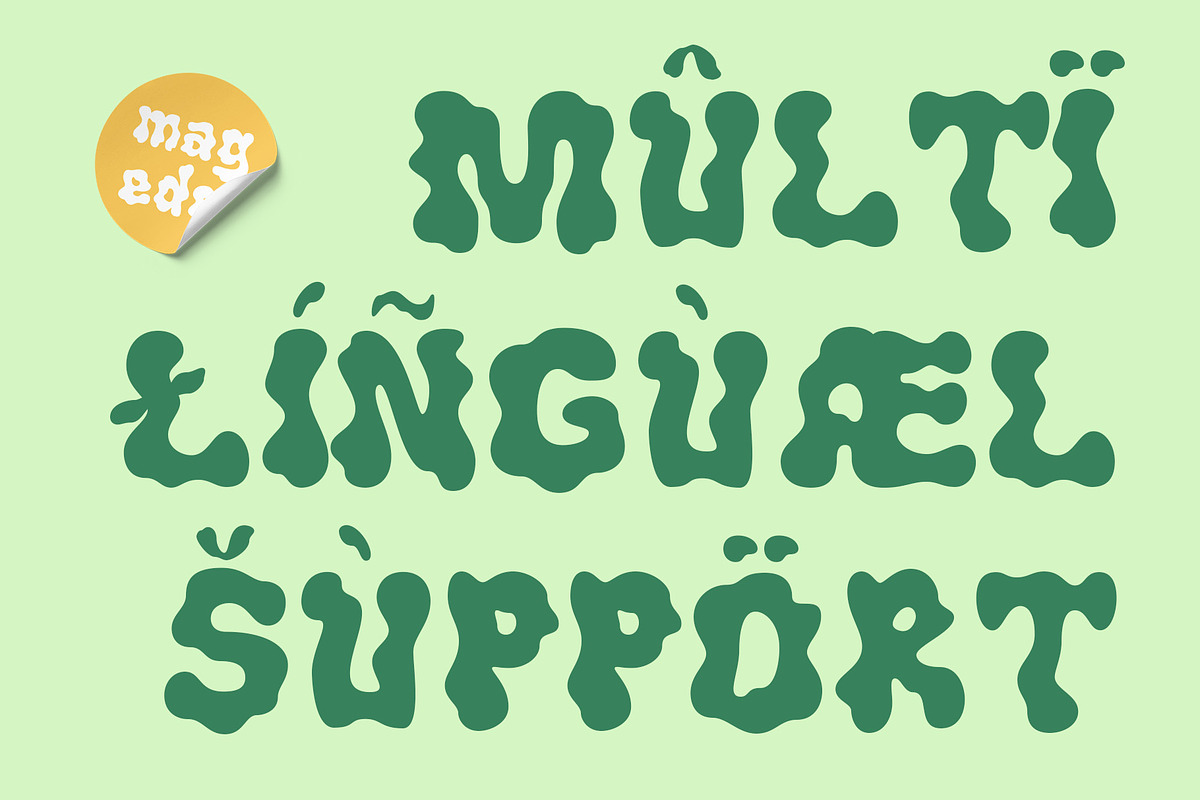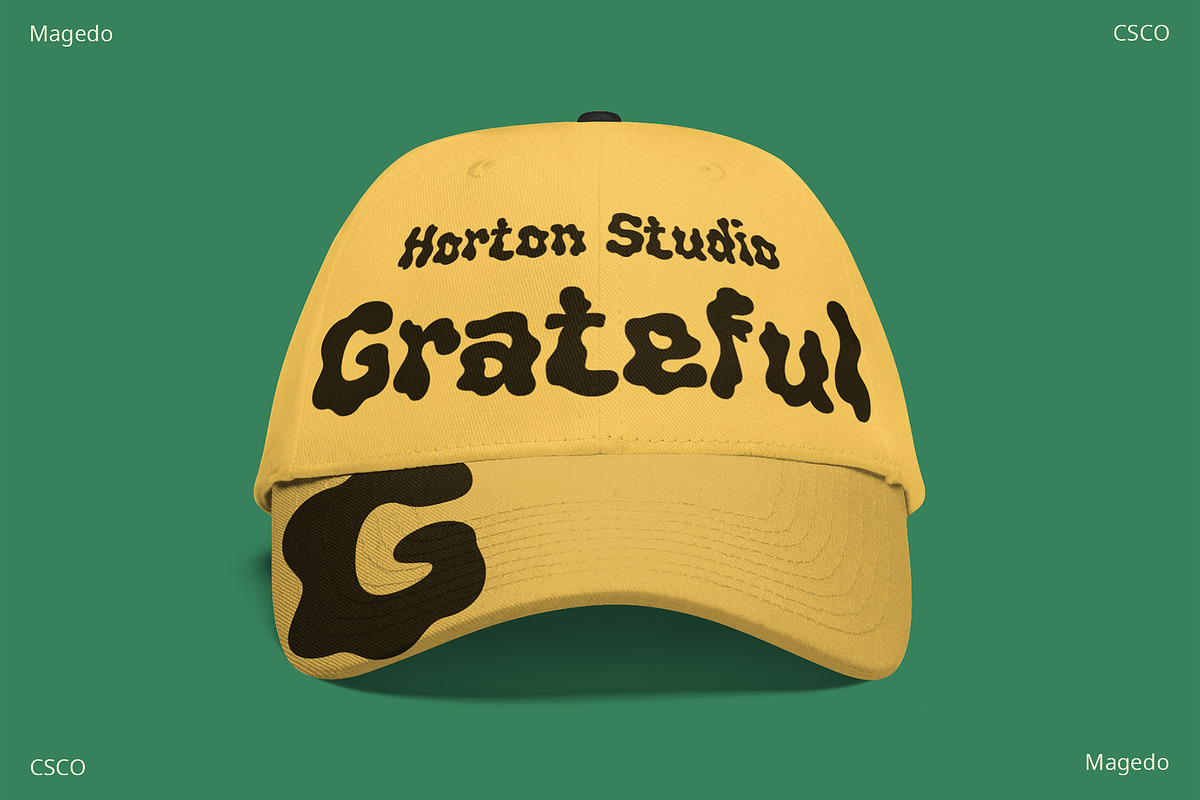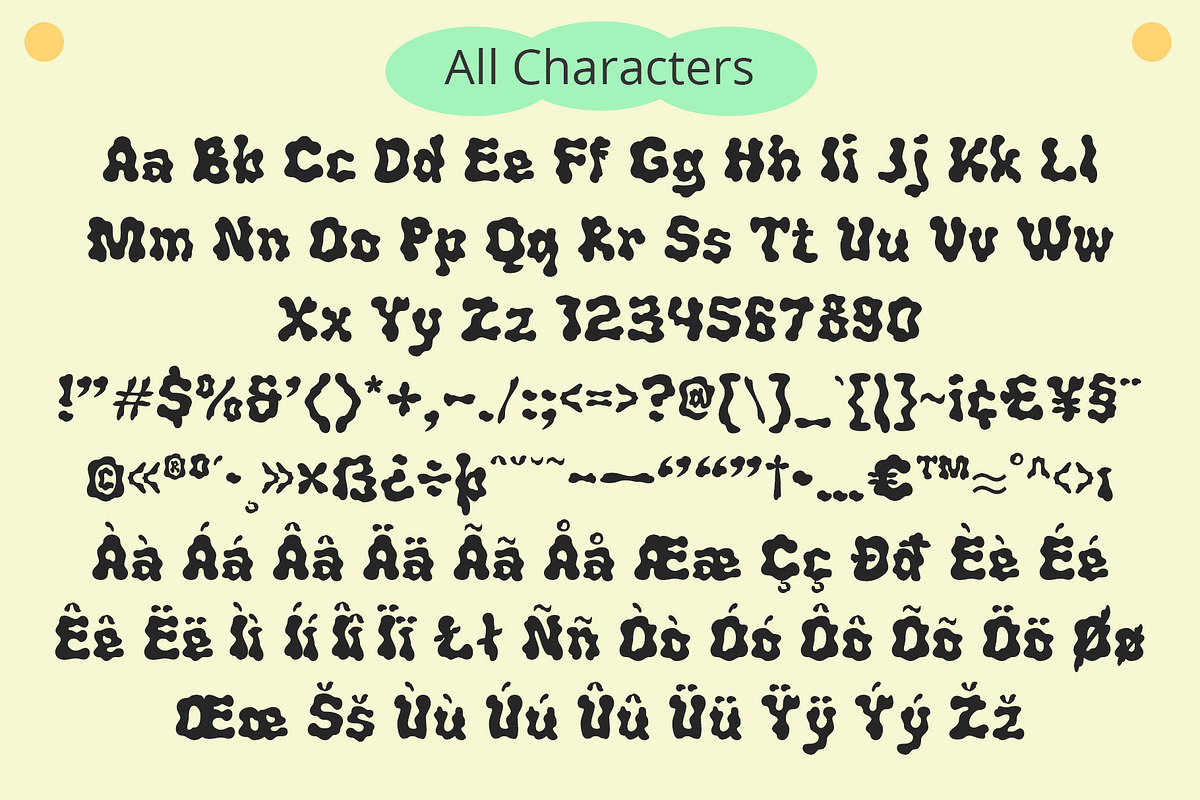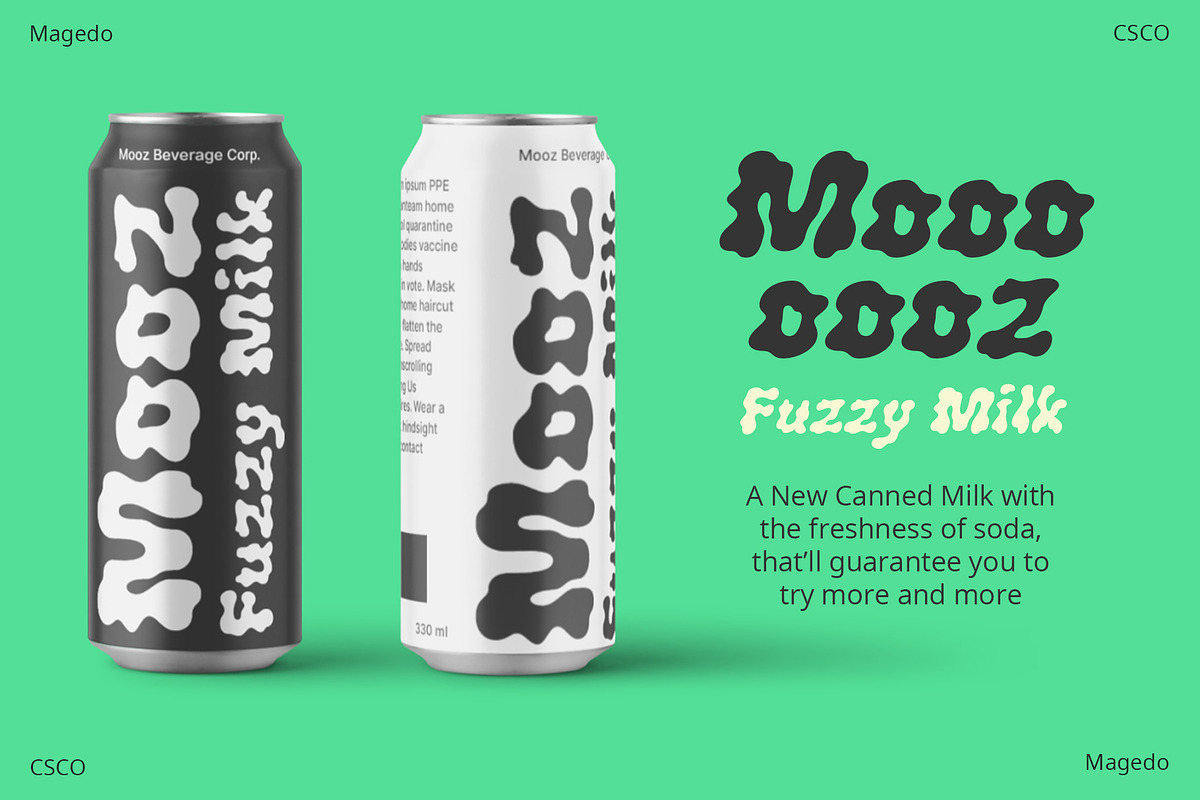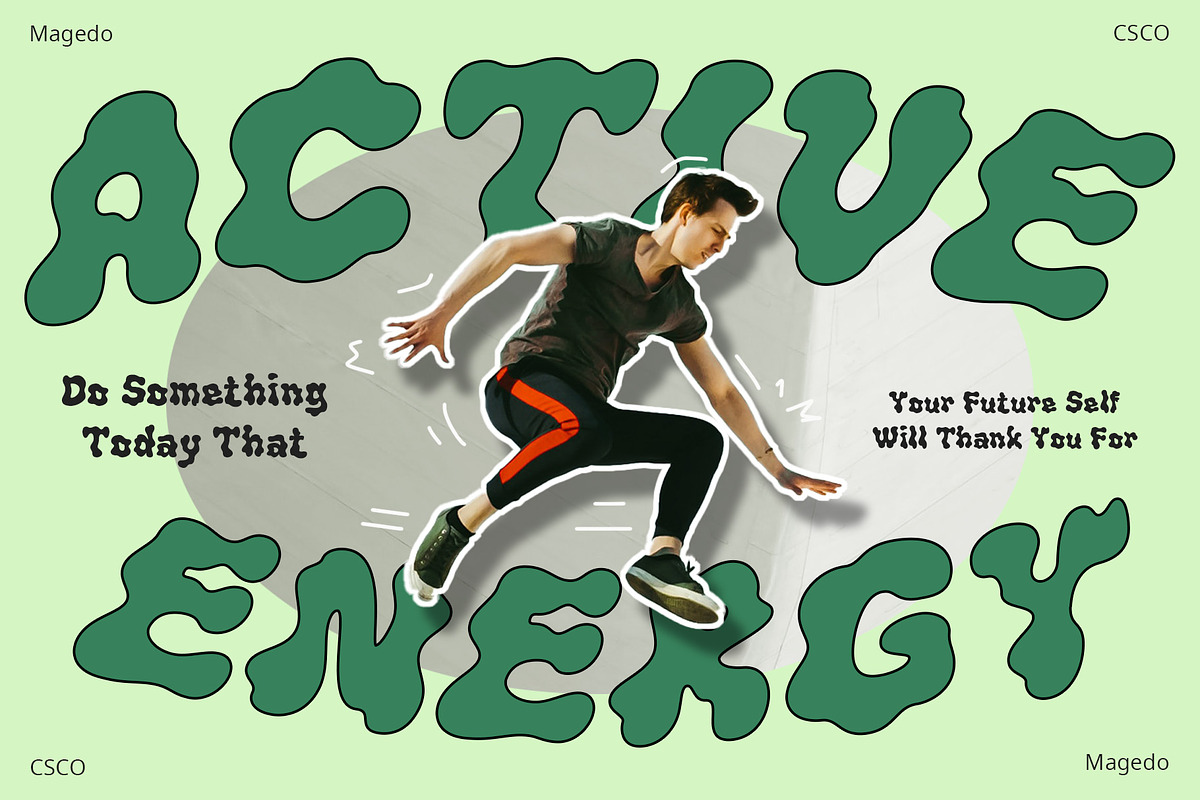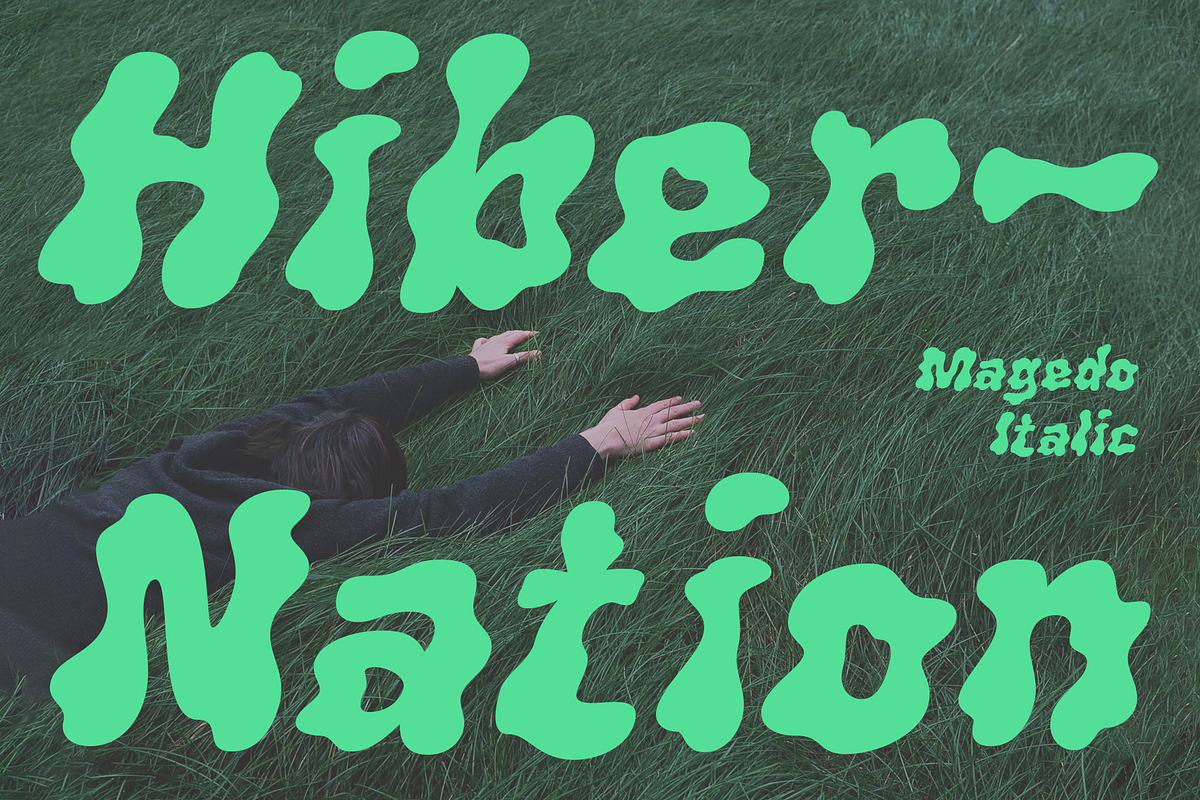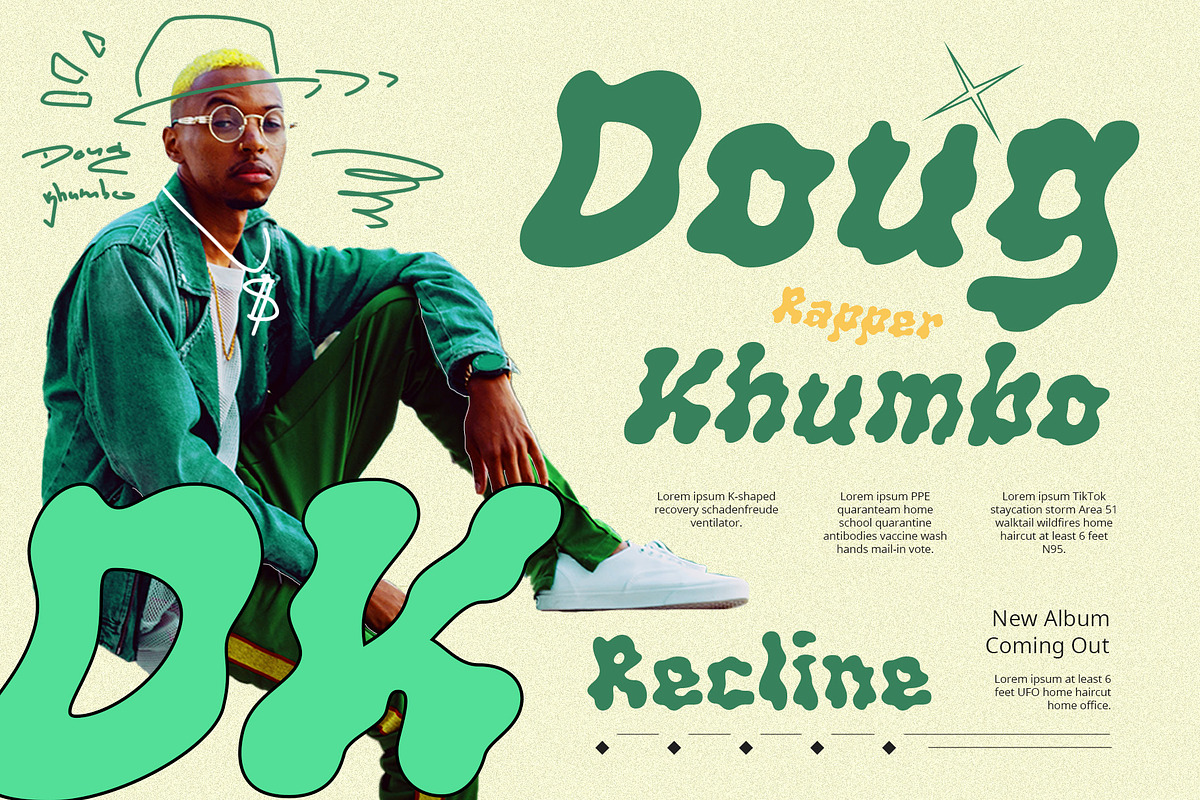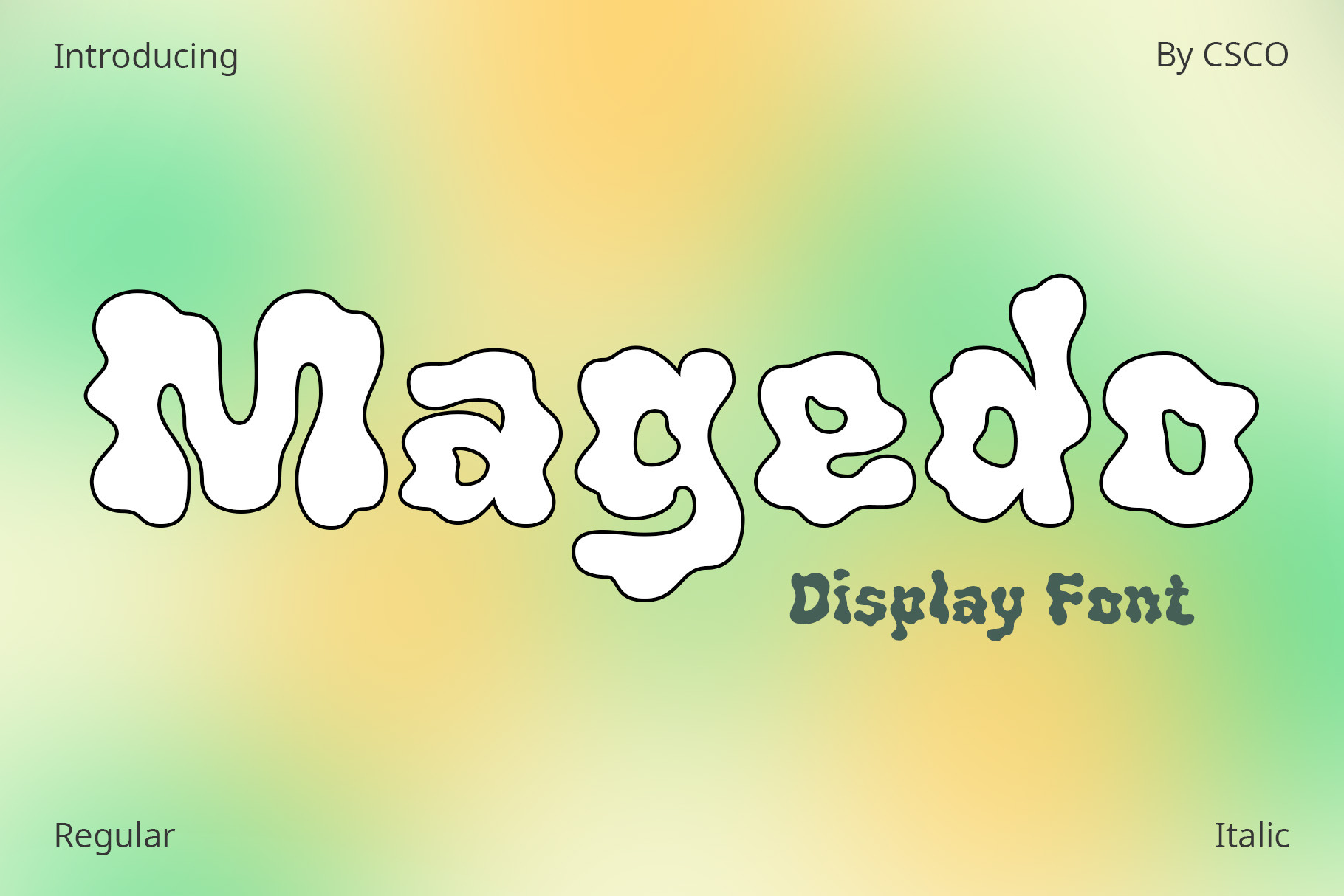
Magedo – Psychedelic Font
Magedo – Psychedelic Font: A Vivid Journey
Unleashing Creativity
The Magedo font draws inspiration from the swirling, vibrant world of psychedelic music. It embodies a visual trip, reminiscent of 1960s rock. This font captures the essence of an era defined by its bold, experimental spirit. Every character in Magedo bursts with creativity, inviting designers to explore uncharted territories.
Magedo’s letters twist and turn, mimicking the fluidity of sound and music. Its design features exaggerated forms and undulating lines. This font displays a kaleidoscope of colors, blending seamlessly into one another. The use of bright, contrasting colors enhances its trippy aesthetic, making it perfect for eye-catching display designs.
Versatility in Use
Ideal for posters, album covers, and merchandise, Magedo speaks to music enthusiasts and artists alike. Its versatility extends to digital platforms, where it adds a touch of whimsy to websites and social media graphics. Despite its intricate design, Magedo maintains readability, ensuring your message stands out.
Engaging the Audience
Finally, Magedo is more than just a font; it’s an experience. It engages viewers, drawing them into a world where art and music collide. Whether used for commercial or personal projects, Magedo guarantees a unique, memorable impact. Embrace the psychedelic journey with Magedo and let your designs sing.
- Magedo Regular
- Magedo Italic